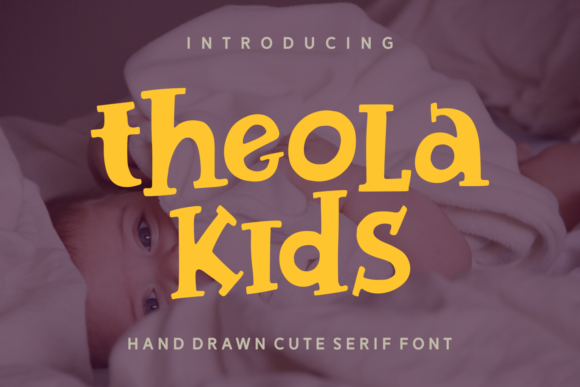
Behold Theola Kids Font, a playful display font, with a mischievous twist that will ignite your creativity and bring a smile to your face. Crafted by the skilled hands of Keithzo (7NTypes), Theola Kids is not just a font; it's an adventure, a journey into a world of imagination and fun.
Picture this: a Christmas sign that radiates warmth and cheer, inviting everyone to join in the festivities. Theola Kids Font transforms ordinary letters into captivating works of art, making your message unforgettable. Its jolly curves and playful strokes capture the magic of the season, spreading joy and laughter wherever it goes.
But Theola Kids Font isn't limited to Christmas. Its versatility knows no bounds. Bring your creative visions to life with this dynamic font, perfect for birthday cards, invitations, posters, and social media graphics. Its whimsical nature adds a touch of delight to any project, leaving a lasting impression on your audience.
With Theola Kids Font, you're not just downloading a font; you're embracing an entire world of possibilities. Its playful personality will elevate your designs, whether you're a seasoned designer or just starting your creative journey. So, dive into the world of Theola Kids Font and let your imagination soar.